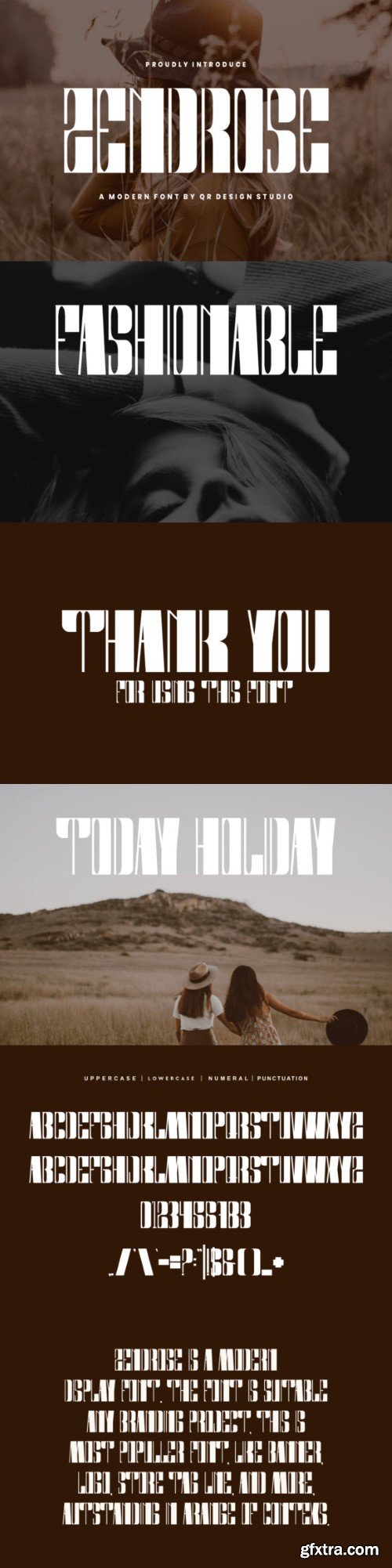
Zendrose 字体
Zendrose Font is a bold and authentic display font.
The font is suitable for any branding project like logo, sport, and many more.
Outstanding in a wide range of contexts.